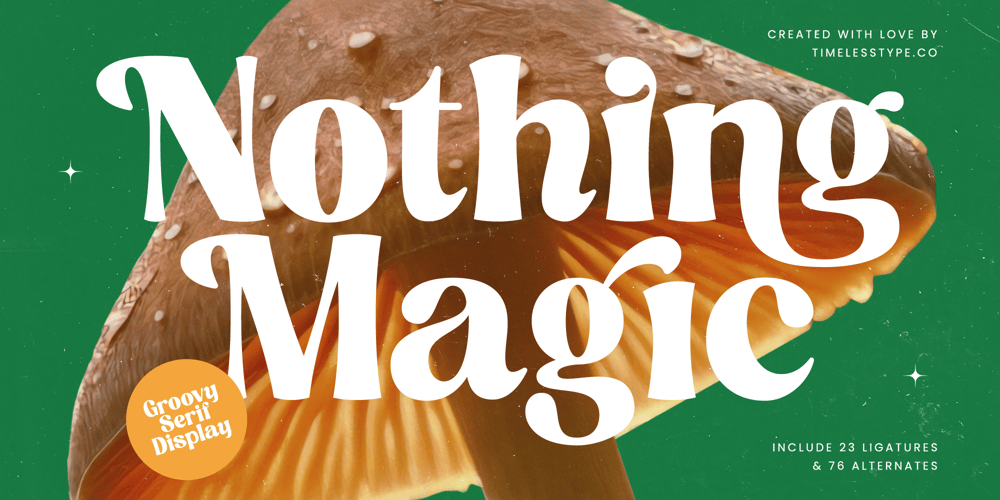
Nothing Magic Font Family was designed by Heru Utama Putra and published by Timelesstype Studio. Nothing Magic contains 2 styles and family package options. Nothing Magic – Groovy Serif Display , from Timelesstype , Suitable for any projects such as: logos, branding projects, homeware designs, product packaging, mugs, quotes, posters, shopping bags, t-shirts, book covers, name card, invitation cards, greeting cards, label, photography, watermark, special events, and all your other luxury and beautiful projects that need a Luxury Serif taste.